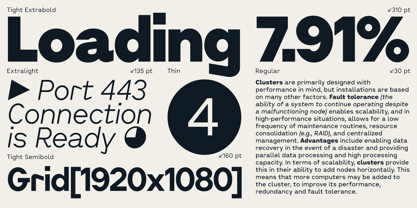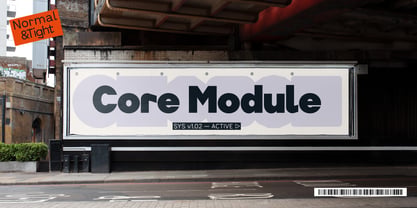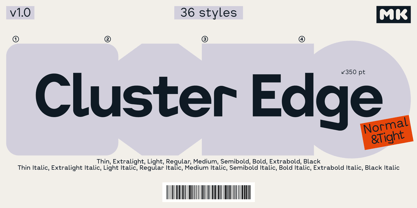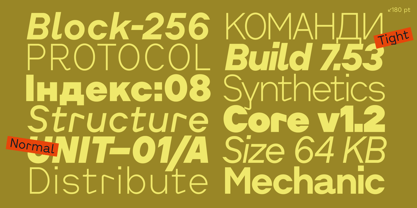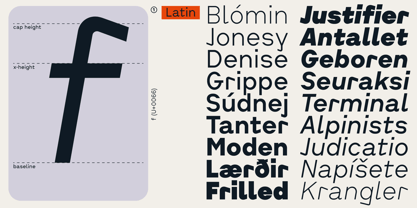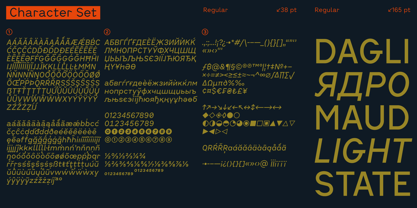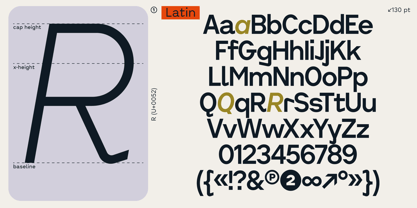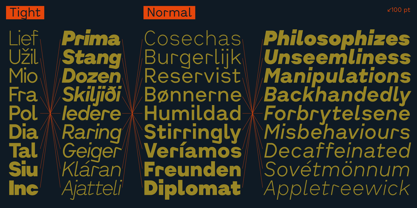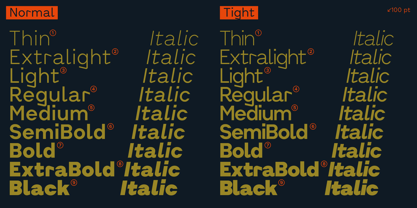
Cluster Edge
by Kobuzan
The Cluster Edge Font Family was designed by Maksym Kobuzan and published by Kobuzan. Cluster Edge contains 38 styles and family package options. More about this family
Cluster Edge is an industrial geometric sans shaped at the intersection of utilitarian sans-serifs from the late 19th century and the systematic approach of mid-20th-century European modernist typography. It expands the ideas introduced in more neutral and versatile Cluster, pushing the design toward a sharper and more expressive direction. Cluster Edge is built around a sense of technical functionality. A relatively wide default spacing creates a distinctive effect — the text resembles the lettering found in engineering drawings, technical diagrams, or early prototypes. This openness reinforces a feeling of clarity, precision, and rational structure. While the base version treats certain historical details as subtle accents, Cluster Edge brings them to the forefront. The characteristic hooks derived from 19th-century grotesques become a defining structural feature of the design. Appearing across a wider range of characters, they introduce a stronger visual rhythm and a more pronounced Bauhaus-like plasticity. At the same time, their number and shape are carefully balanced to keep the typeface expressive without becoming overly decorative. Another distinctive feature is the treatment of capitals. Compared to the lowercase, the uppercase letters are slightly condensed, creating a more compact rhythm in all-caps settings. Their proportions are loosely inspired by the lettering found on license plates and road signage, reinforcing the utilitarian tone of the design. The family consists of 36 styles and is divided into two versions: Cluster Edge and Cluster Edge Tight, each with 9 weights and matching italics. Edge maintains a more open spacing that emphasizes the structural clarity of the text. Tight features carefully reworked compact spacing designed for large sizes — helping to avoid the optical defects that often appear when tracking is simply reduced in design software.
Designers: Maksym Kobuzan
Foundry: Kobuzan